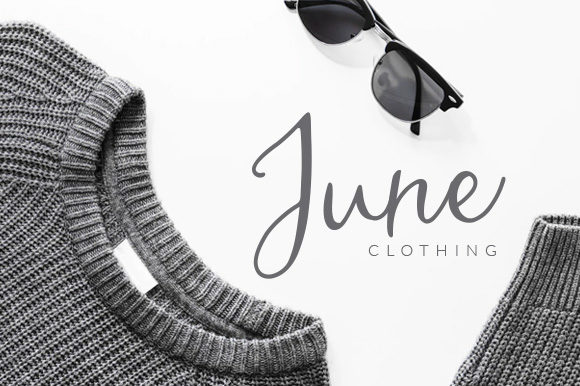
Hungaria Script Font
Hungaria Script Demo Font
Hungaria Font – is a signature script font created and shared by Trim Studio. Hungaria Script Font is a beautiful script font which was carefully created for beauty brands. It can also be used for every designs which needs a feminine and elegant touch.